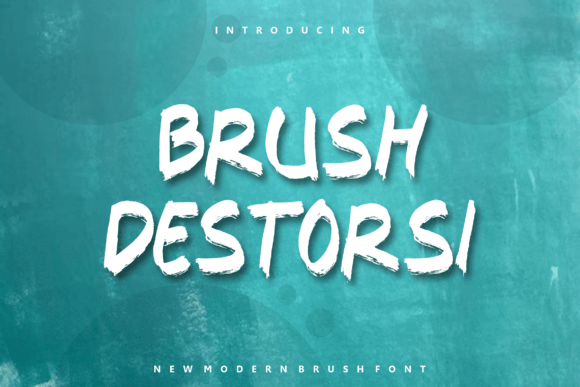
The Brush Destorsi Font: A Bold and Authentic Display Font for Your Creative Projects
Have you ever been in the middle of a design project, and suddenly, you’re stuck on finding the perfect font? I recall a recent experience where I was working on a logo design for a client’s outdoor gear brand. The client wanted a bold, eye-catching font that would reflect their brand’s adventurous personality. After scouring through numerous font libraries, I stumbled upon the Brush Destorsi font, which instantly caught my attention.
The Brush Destorsi font is a bold and authentic display font suitable for any branding project, including logos, t-shirt printing, and more. Its unique, hand-brushed texture gives it a distinctive look that stands out in various contexts.
An Honest Review of Brush Destorsi Font
What I Love About Brush Destorsi Font ✨
• ✅ Unique Texture: The hand-brushed texture of Brush Destorsi gives it a one-of-a-kind look that’s perfect for designs that require a personal touch.
• ✅ Bold and Eye-Catching: This font is designed to make a statement. Its bold strokes and authentic feel make it perfect for headlines, titles, and logos.
• ✅ Versatile: Brush Destorsi looks outstanding in a wide range of contexts, from outdoor gear branding to fashion and lifestyle projects.
• ✅ Easy to Read: Despite its bold texture, the font remains surprisingly legible, making it suitable for both short and long-form text.
While Brush Destorsi is an excellent font, it’s not without its limitations. Here are a few things to keep in mind:
• ⚠️ Limited Use Cases: Due to its bold and textured nature, Brush Destorsi might not be the best choice for body text or small font sizes.
• ⚠️ Glyph Limitations: Some users have reported that the font could benefit from additional glyphs, particularly for non-English languages.
The Designer Inspiration Behind Brush Destorsi
The Brush Destorsi font was inspired by the artist’s love of hand-brushed typography and vintage signage. The designer aimed to create a font that would evoke a sense of authenticity and uniqueness, perfect for creative projects that require a personal touch.
Q: What is the Brush Destorsi font best used for?
A: Brush Destorsi is best used for display text, such as logos, titles, and headlines. Its bold texture and authentic feel make it perfect for designs that require a statement piece.